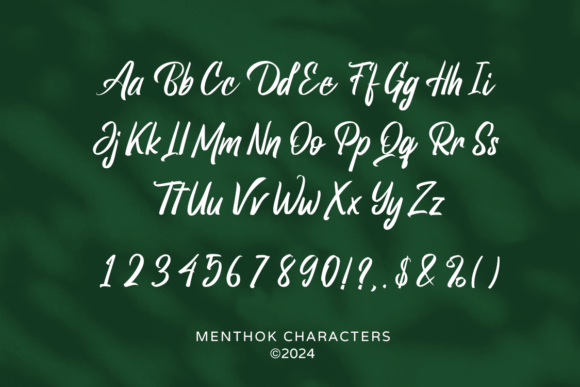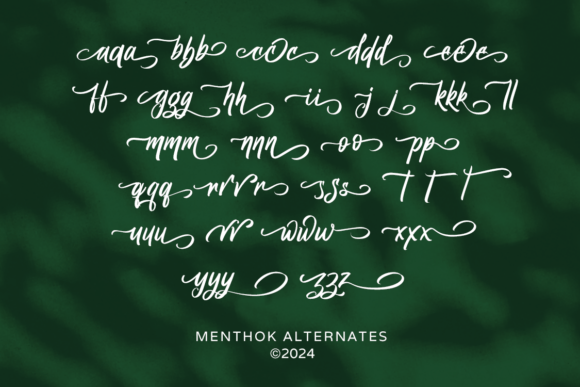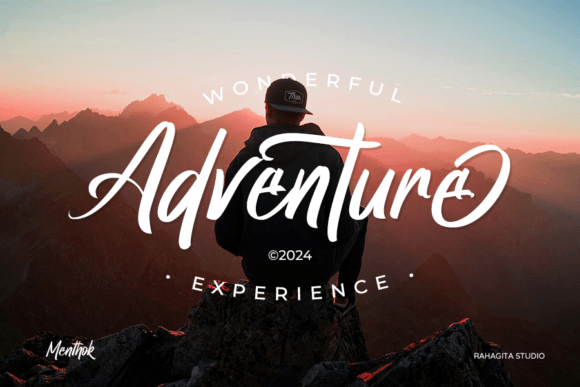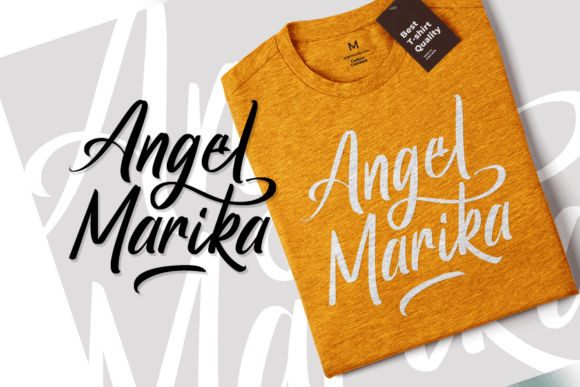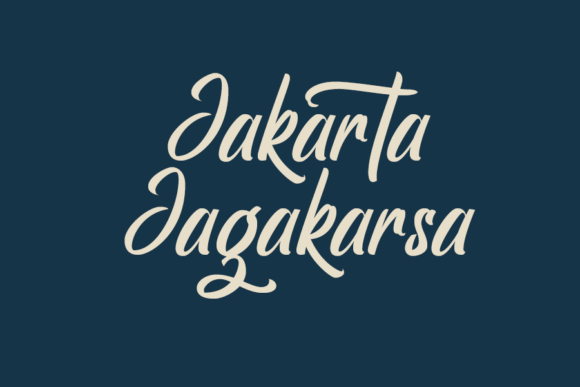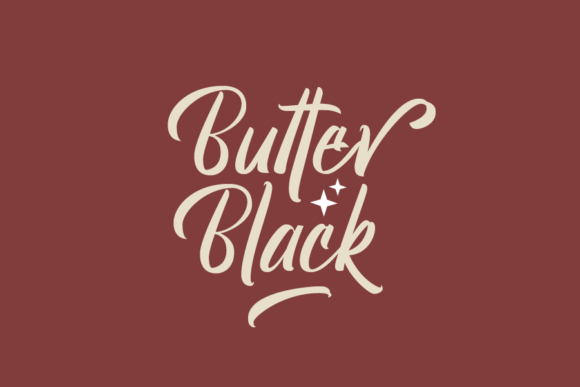
Introduction to Menthok Font Font
Fonts play a crucial role in design, and the Menthok Font font is a typeface that brings both character and versatility to any project. Whether you’re working on a branding project, a website, or a print design, the Menthok Font font offers a unique style that can elevate your work.
Menthok is a captivating script that effortlessly blends the delicate beauty of love with the exhilarating spirit of adventure.
With its graceful curves and enchanting swirls, Menthok exudes a sense of romance and wanderlust, igniting excitement and passion in every design .
Key Features of Menthok Font Font
• ✅ High-quality typeface designed for professional use
• ✅ Includes a wide range of glyphs and characters
• ✅ Ideal for logos, branding, websites, and print
Why Choose Menthok Font Font?
The Menthok Font font is more than just a typeface – it’s a design tool that helps you communicate your message with style and clarity. Its unique character set and versatile design make it suitable for a wide range of applications, from elegant invitations to bold headlines.
With its carefully crafted letterforms and balanced proportions, the Menthok Font font ensures readability and visual appeal across all mediums.
What makes Menthok Font font special?
The Menthok Font font stands out with its unique design, exceptional readability, and versatility across various design applications.